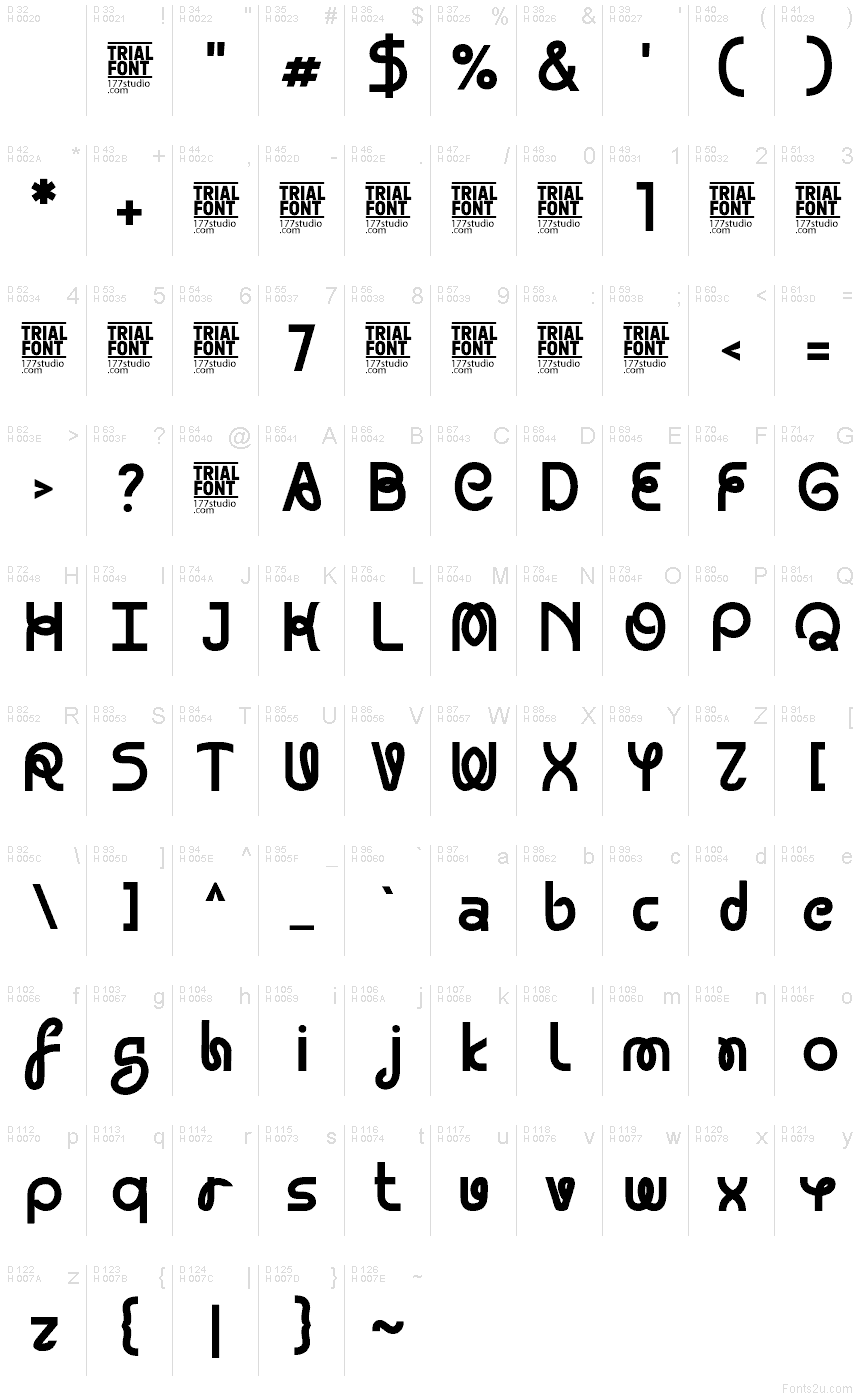
Changing Campaign font by 177Studio is a free decorative display typeface with bold, inky strokes that curl and loop into playful, slightly quirky forms. Each letter feels hand-doodled yet consistent, with rounded terminals that make the whole wordmark look like it’s bouncing across the line. There’s a fun tension between the chunky weight and the airy gaps inside the curves, giving your titles a lively rhythm without feeling chaotic.
Using Changing Campaign, you can instantly give posters, children’s book covers, party invitations, social media graphics, packaging, or branding for playful products a fresh, storybook personality. This free font shines when used big and bold, letting those swirls and hooks really show. For balance, pair it with a clean geometric sans in smaller text to keep layouts readable while the headline steals the show.